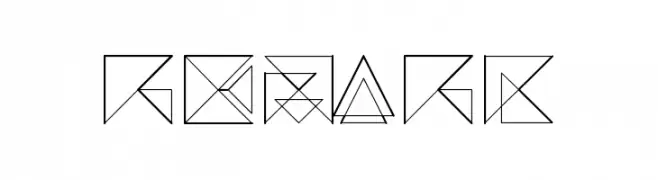
A geometric and abstract font with intersecting lines and shapes.
A playful, bubble-like outlined font with bold, rounded characters.
A bold, italicized font with smooth, rounded edges and a modern look.
A modern, italic font with smooth curves and clean lines, ideal for dynamic designs.
An elegant italic serif font with smooth lines and a classic touch.
A pixelated, geometric font with a retro digital style.
A bold, distressed font with ornate, vintage embellishments.
An ornate and flowing script font with elaborate swirls and elegant lines.